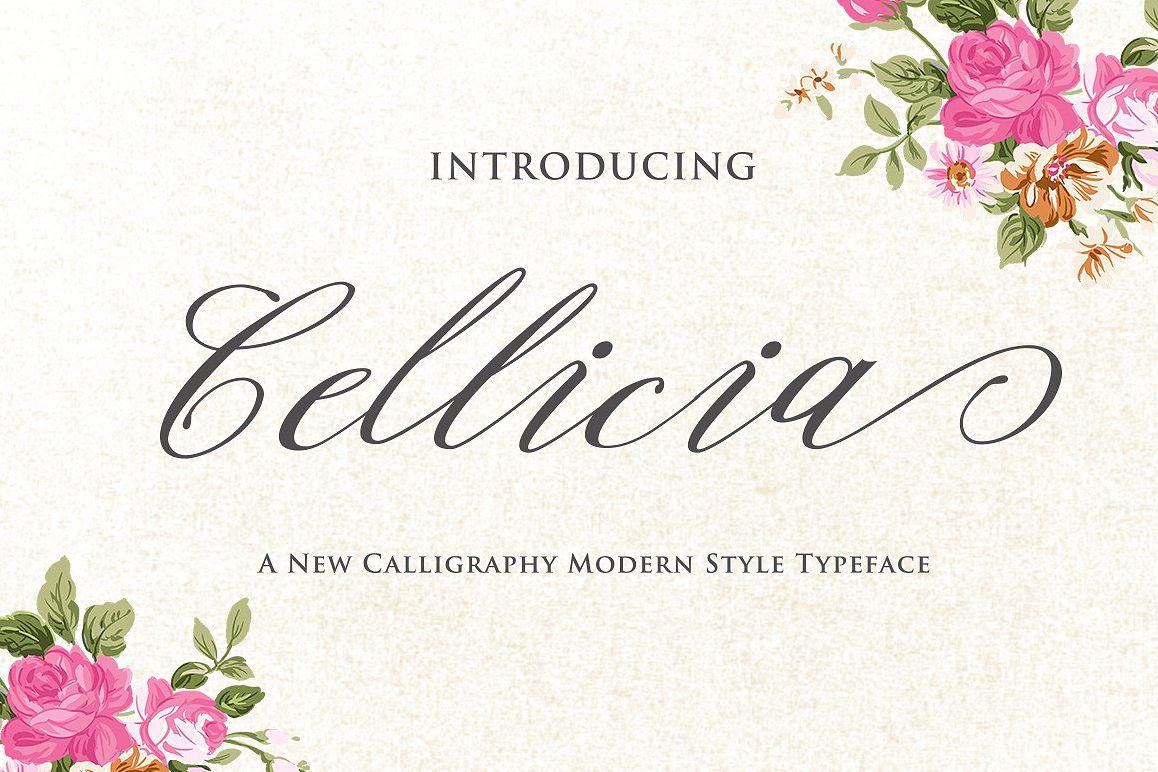
Cellicia Script
Introducing Cellicia Script
Cellicia Script is a new handwritten stylish copperplate calligraphy fonts, combines from copperplate to contemporary typeface, classic and elegant touch.Cellicia Script features 378 glyphs and 190 alternate character contain with opentype features. Stylistic alternates, Ligature and more.
Cellicia Script is suitable for Apparel Brand, any greeting cards, Painting design style, or any design that needs natural and personal touch. Mix and match the alternate characters to add an attractive message to your design.
Features of Cellicia Script is;
• Contextual Alternates
• Standart ligatures
• Stylistic sets